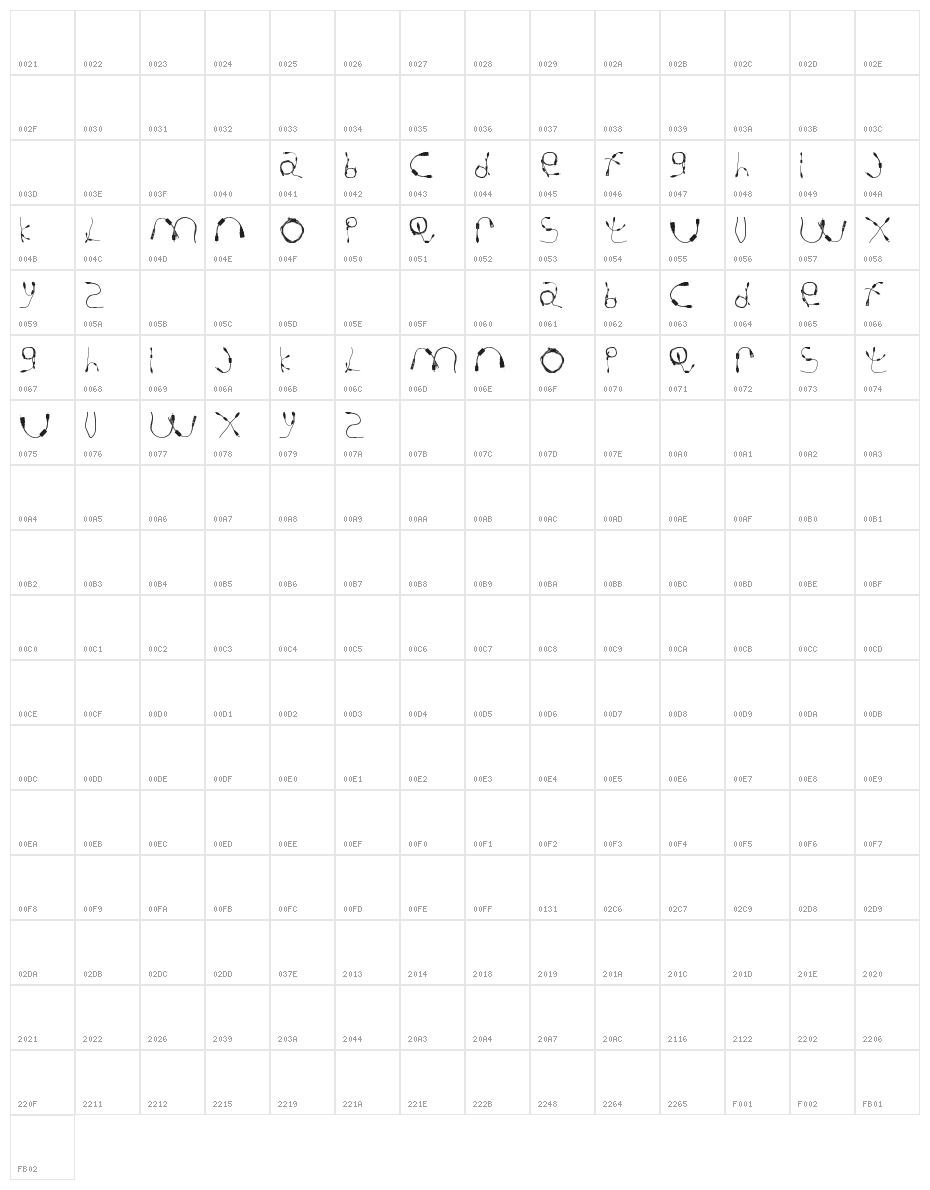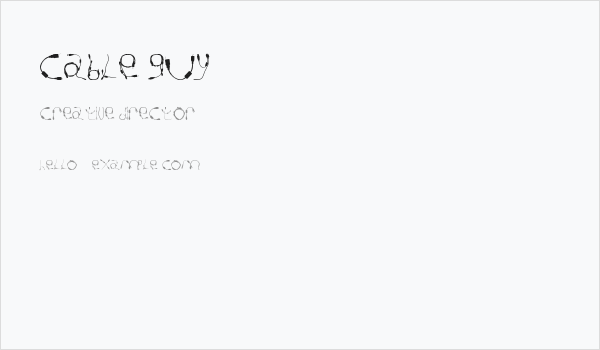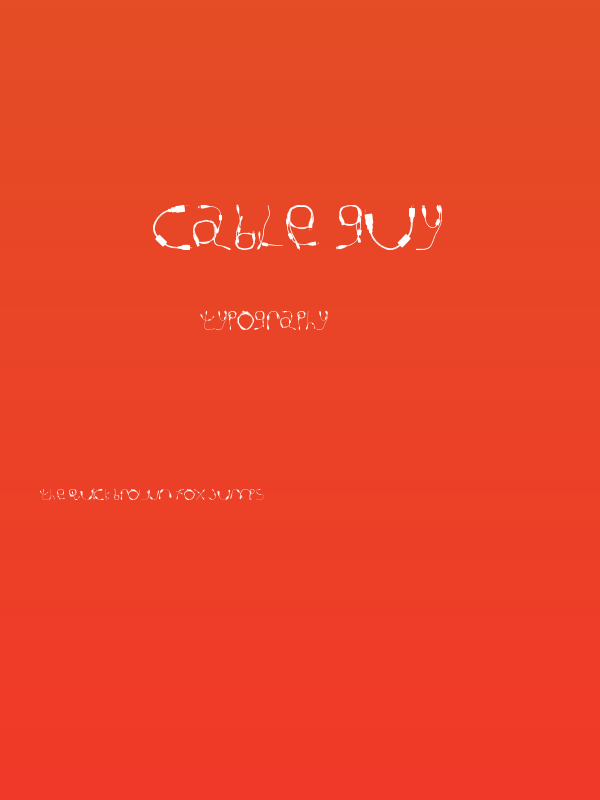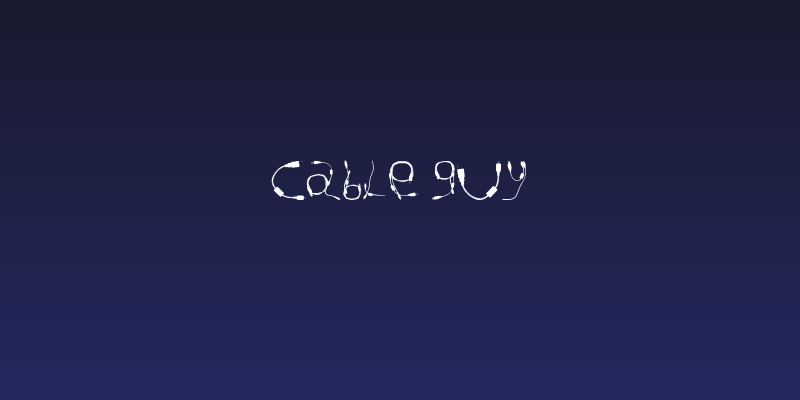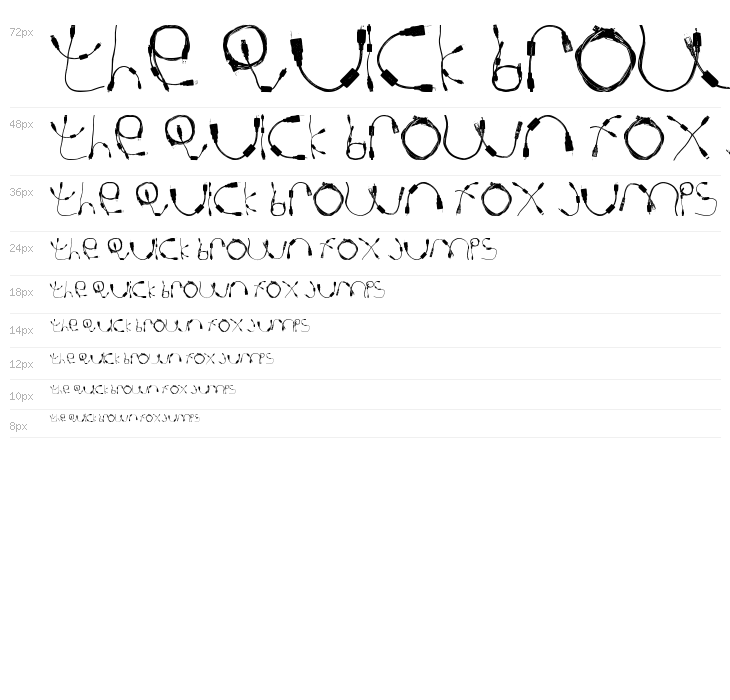
Cable Guy Font
Cable Guy Description
This creative and unique font is designed to resemble cables forming each letter. The characters are crafted with a playful and inventive style, using the visual elements of cables and connectors to shape the alphabet. The font maintains a consistent line thickness throughout, mimicking the look of real cables. Each letter is distinct, yet they all share the common theme of being formed by these electronic components. The design is both modern and quirky, making it stand out for its originality and thematic coherence.
| Use Case | Logos, Posters, Creative Displays |
| Proposed Projects | Ideal for tech-themed projects, creative posters, or branding for electronics and gadget companies. |